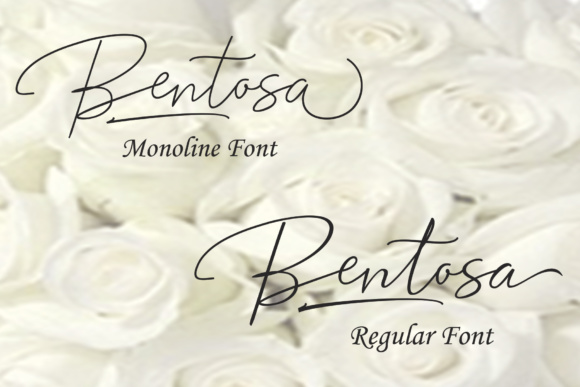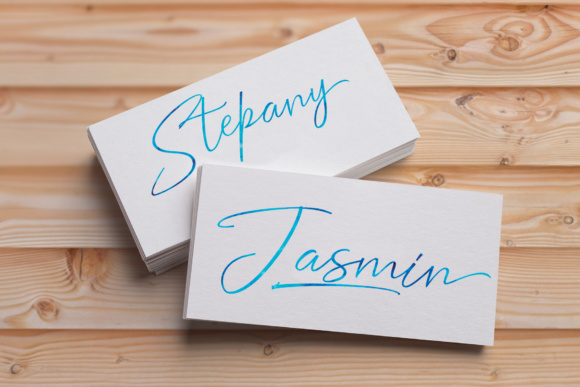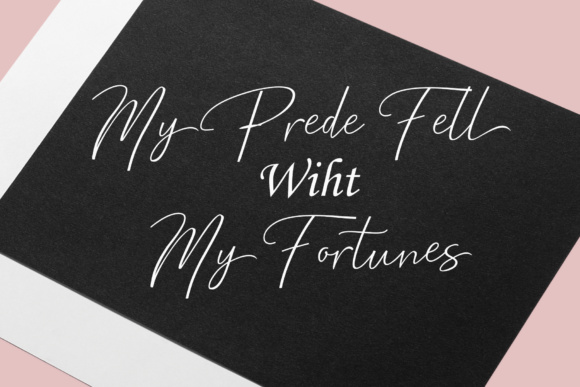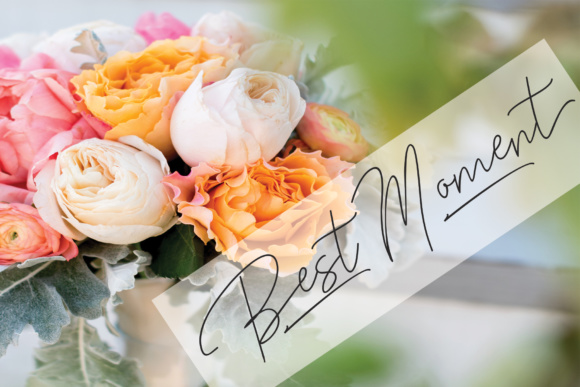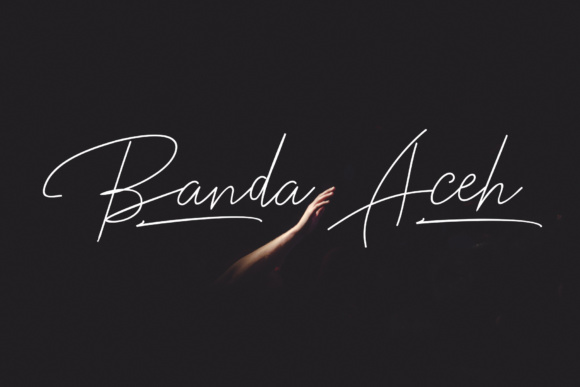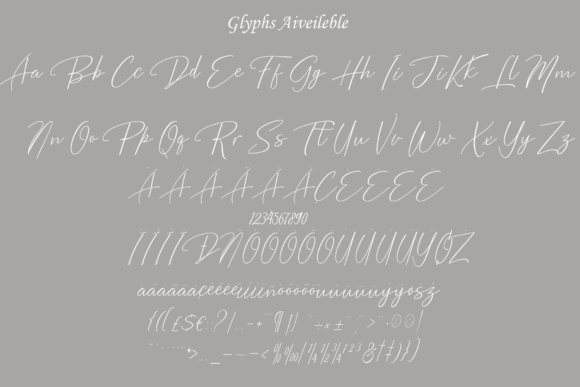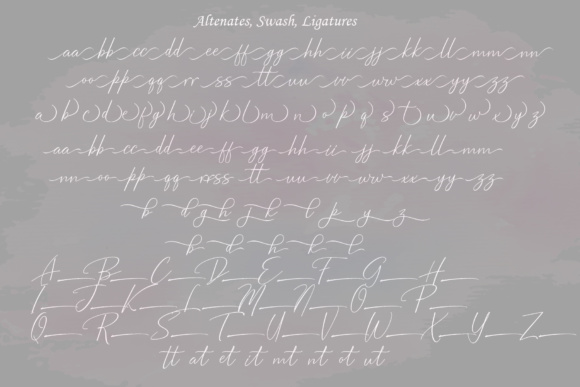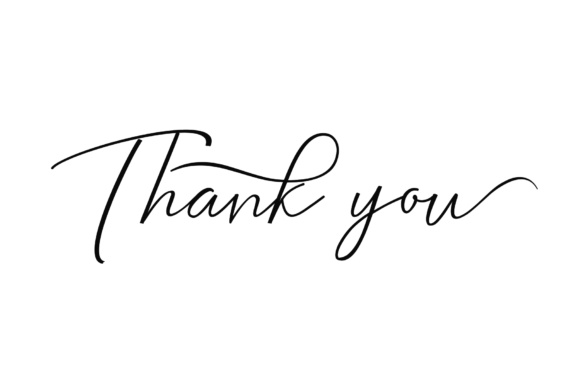
Bentosa Duo Font
About Bentosa Duo Font
The Bentosa is a script duo with stylish calligraphy forms. It has fine lines, a dancing baseline and classic and elegant touches.It can be used for various designs, such as: logos, watermarks, posters, labels and much more!